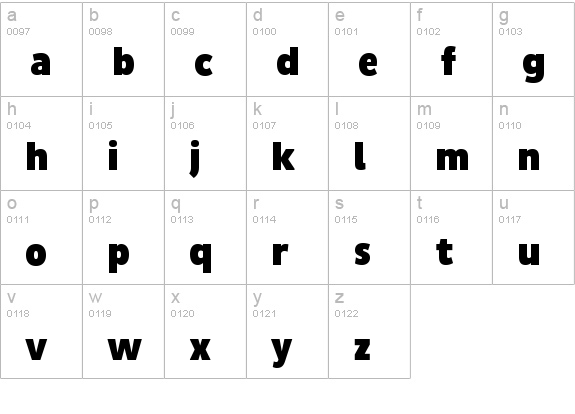
Pluto Sans Cond Black is a maximum-weight, dramatic, condensed-width variant in the Pluto typeface family \xE2\x80\x94 well suited to maximum-impact headlines, posters, and packaging.
Pluto Sans Cond Black is a bold and impactful font that exudes modernity and sophistication. Its sleek lines and sharp angles make it perfect for creating eye-catching headlines, posters, and branding materials. With its condensed style, this font commands attention and adds a touch of elegance to any design project. The best part? Pluto Sans Cond Black is available for free download at FontsMarket.com. This means that you can enhance your designs with this stunning font without any cost. Don't miss out on the opportunity to elevate your creations with the striking Pluto Sans Cond Black font. Download it now and add a touch of style and professionalism to your projects!